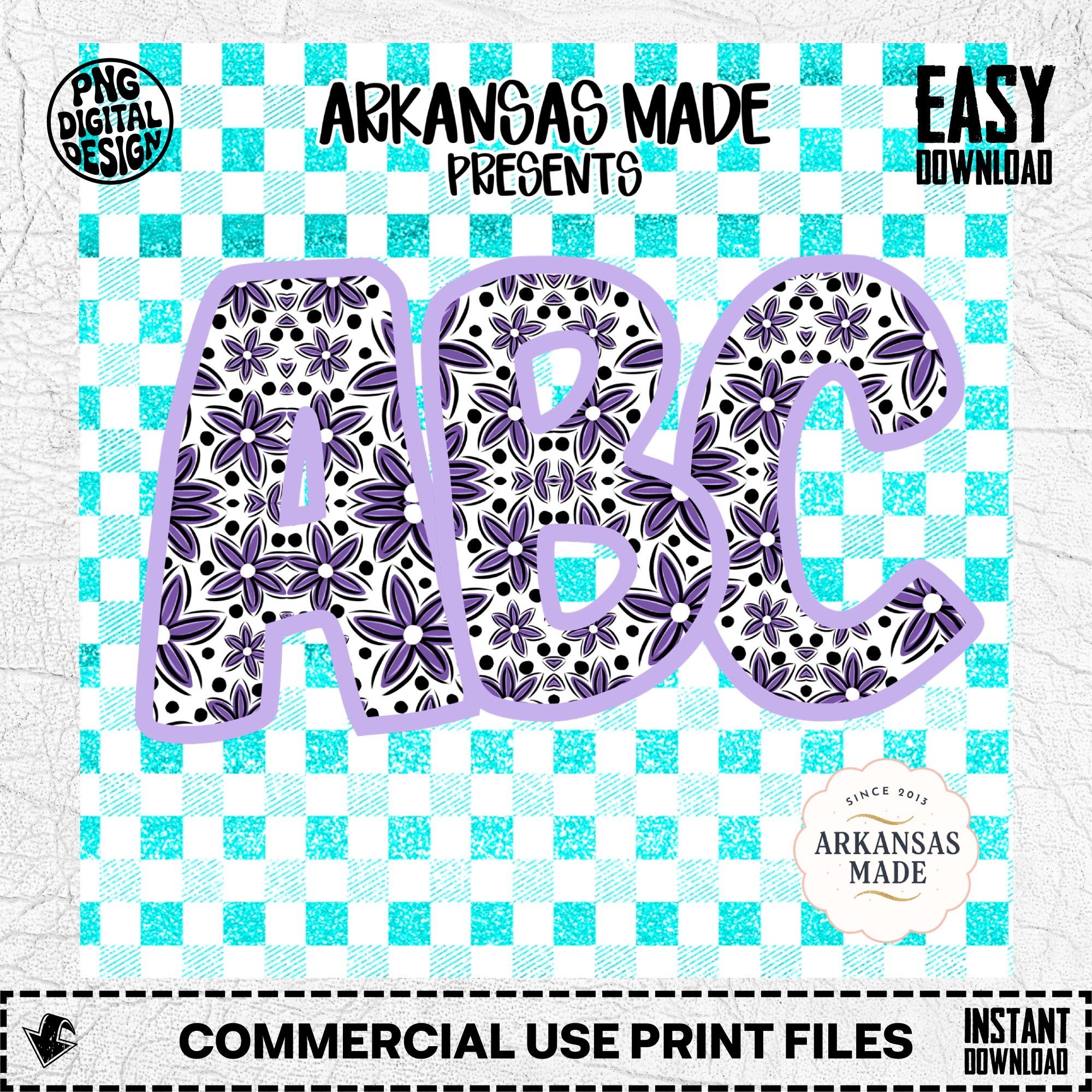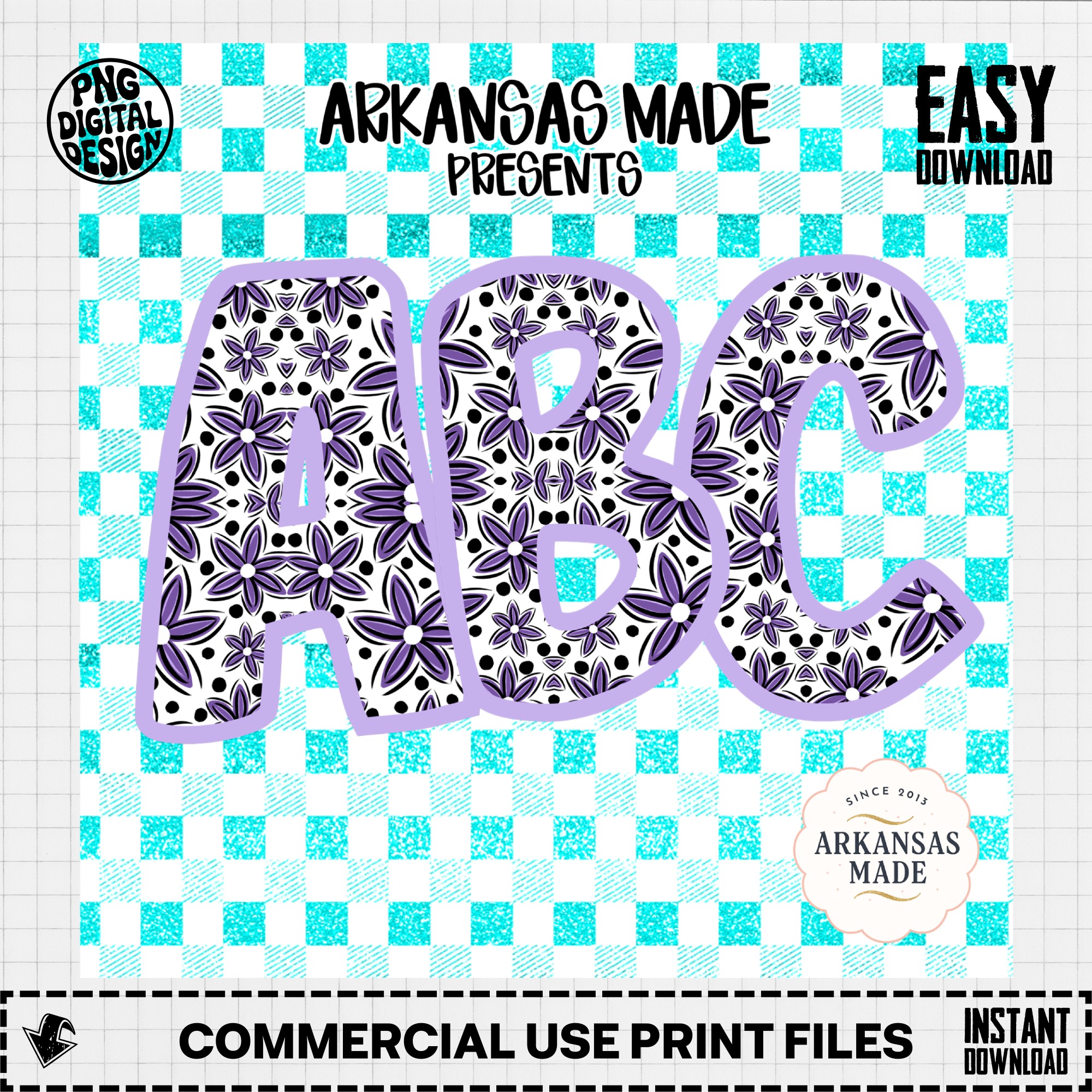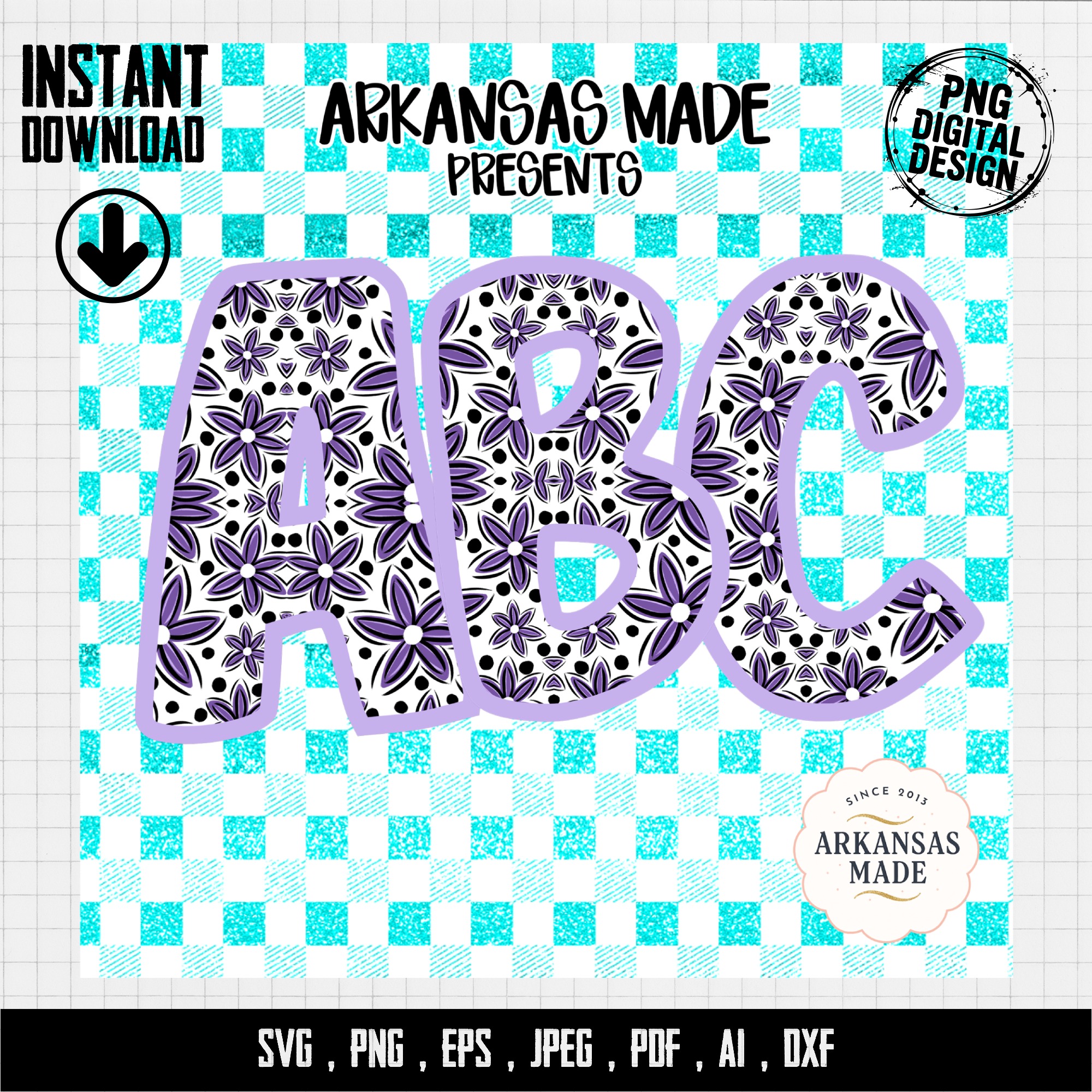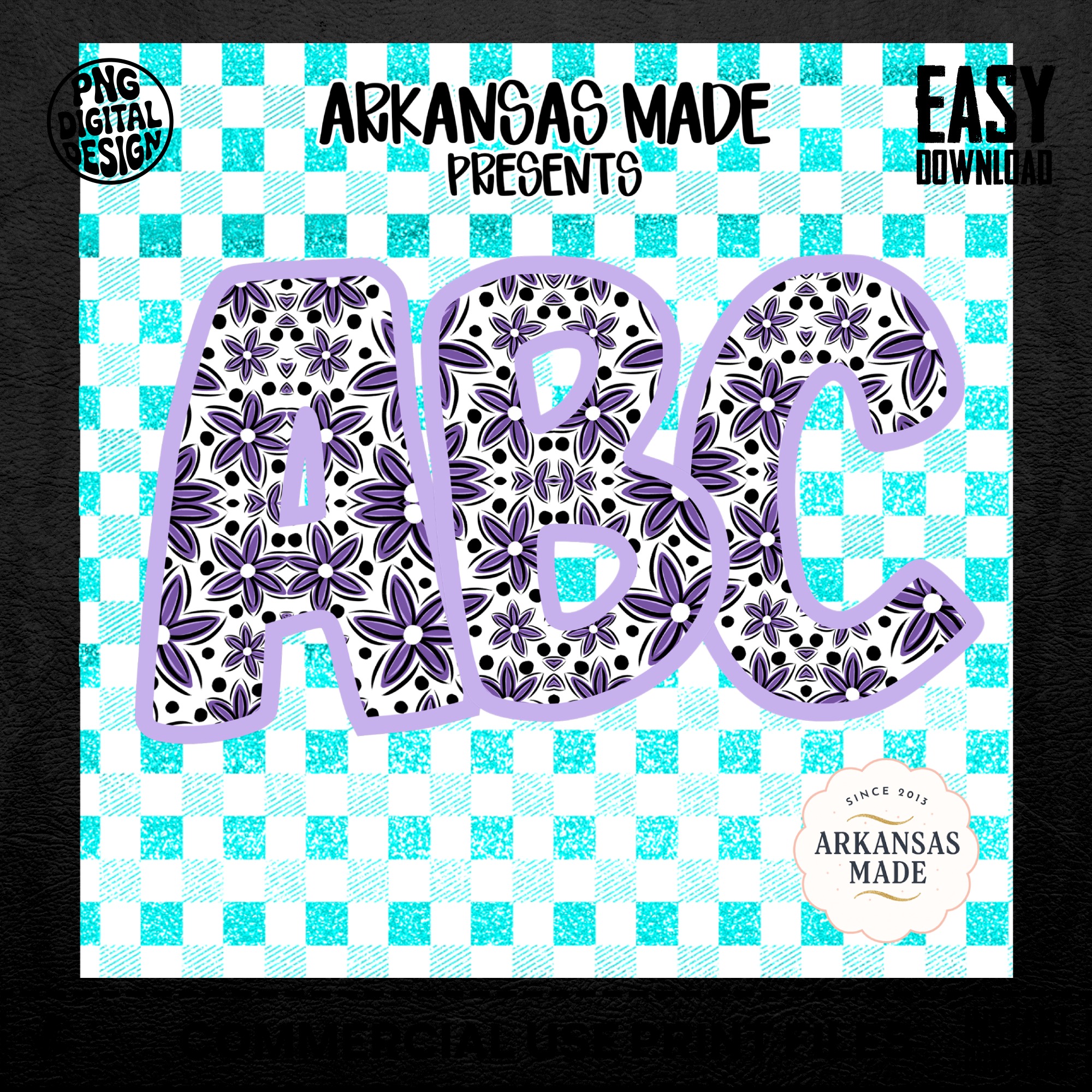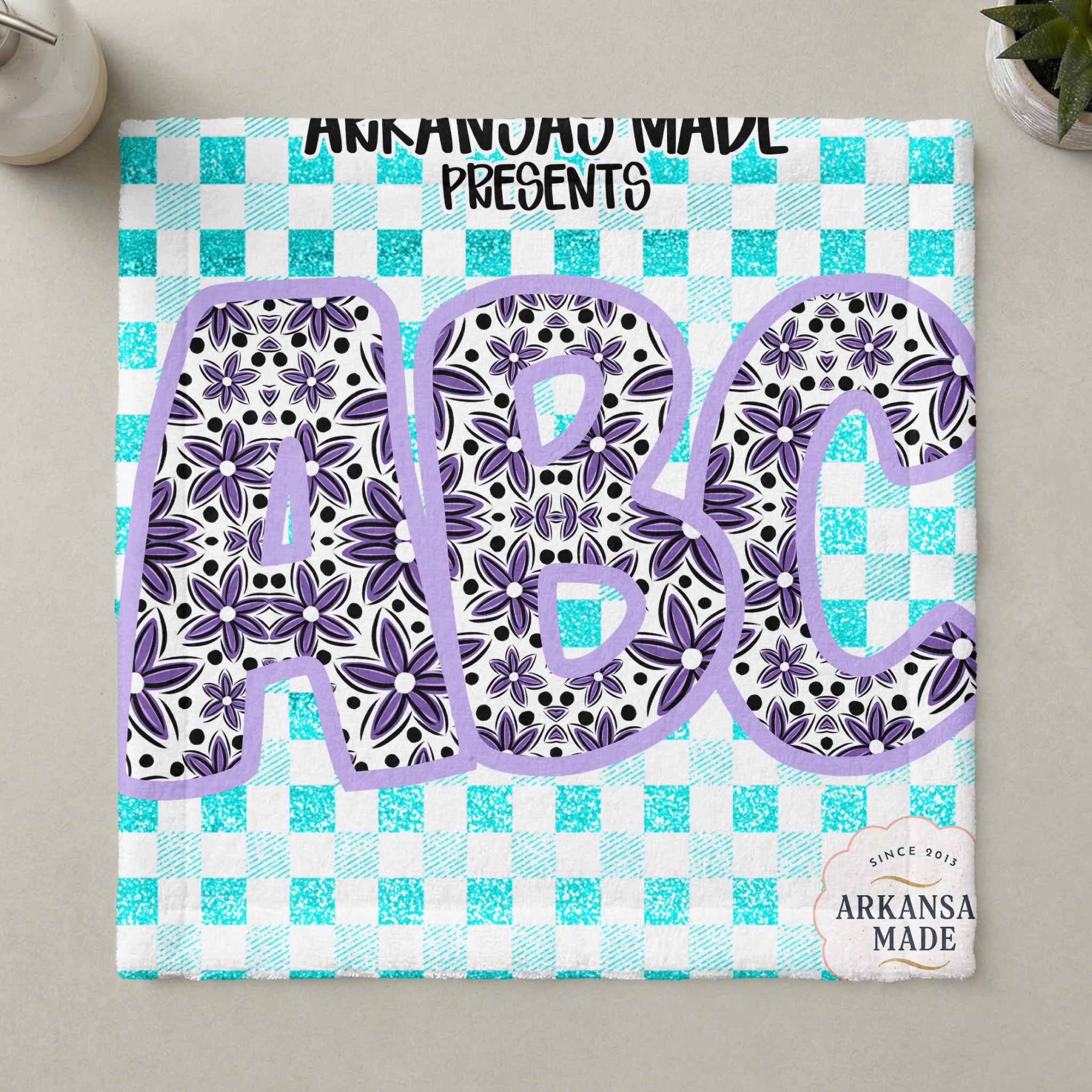
Elevate your crafting projects with this vibrant Digital Download Full A-Z Alpha set. Our unique digital letters feature an intricate purple floral mandala pattern, beautifully contrasted by a cheerful aqua and white distressed buffalo plaid background. These Digital, Sublimation DTF PNGs are meticulously designed to add a distinctive artistic touch, ensuring your creations truly stand out. Ideal for personalized gifts, custom apparel, and various creative endeavors.
* Complete Full A-Z Alphabet included.
* Purple floral mandala letter design.
* Aqua white distressed buffalo plaid.